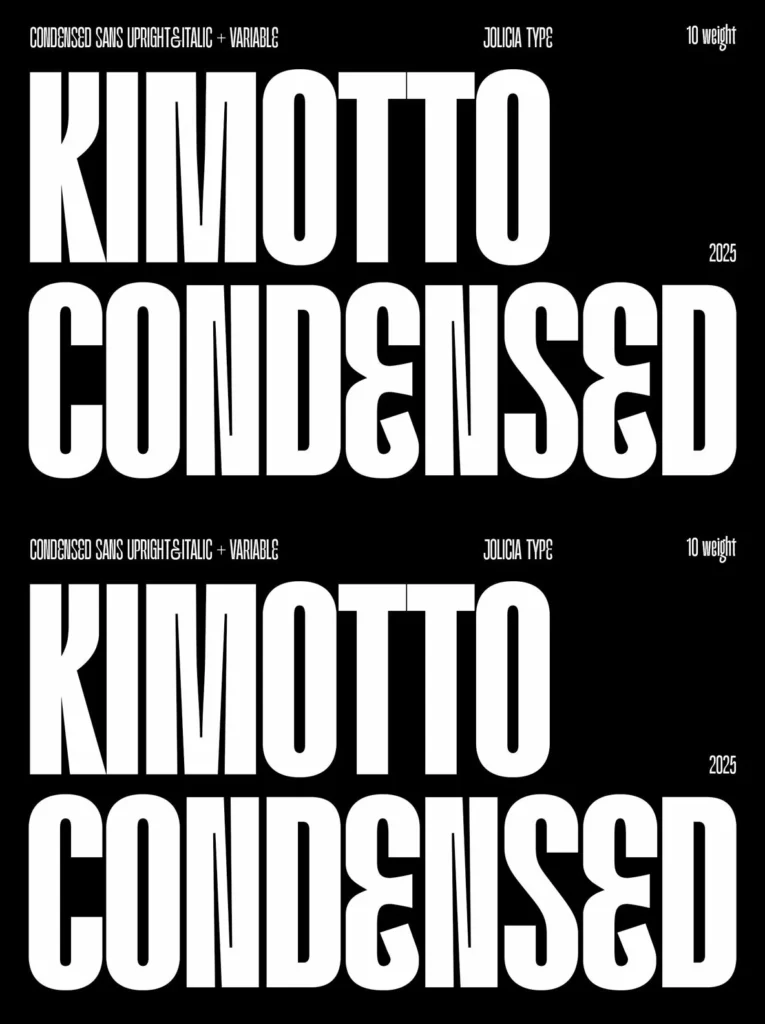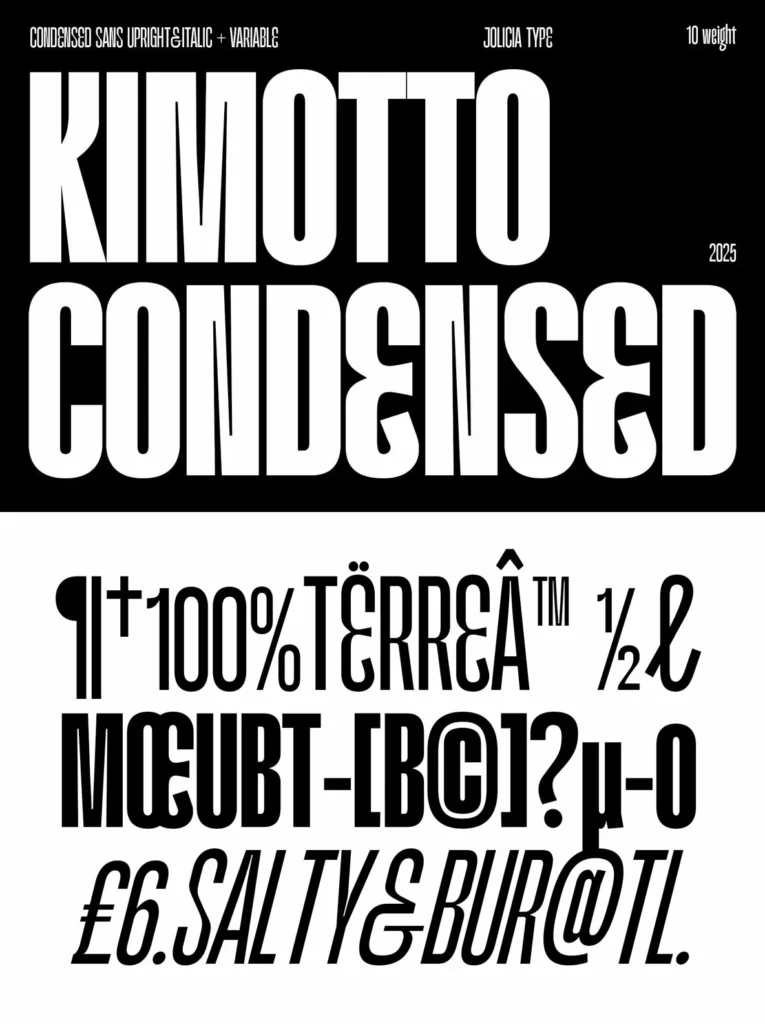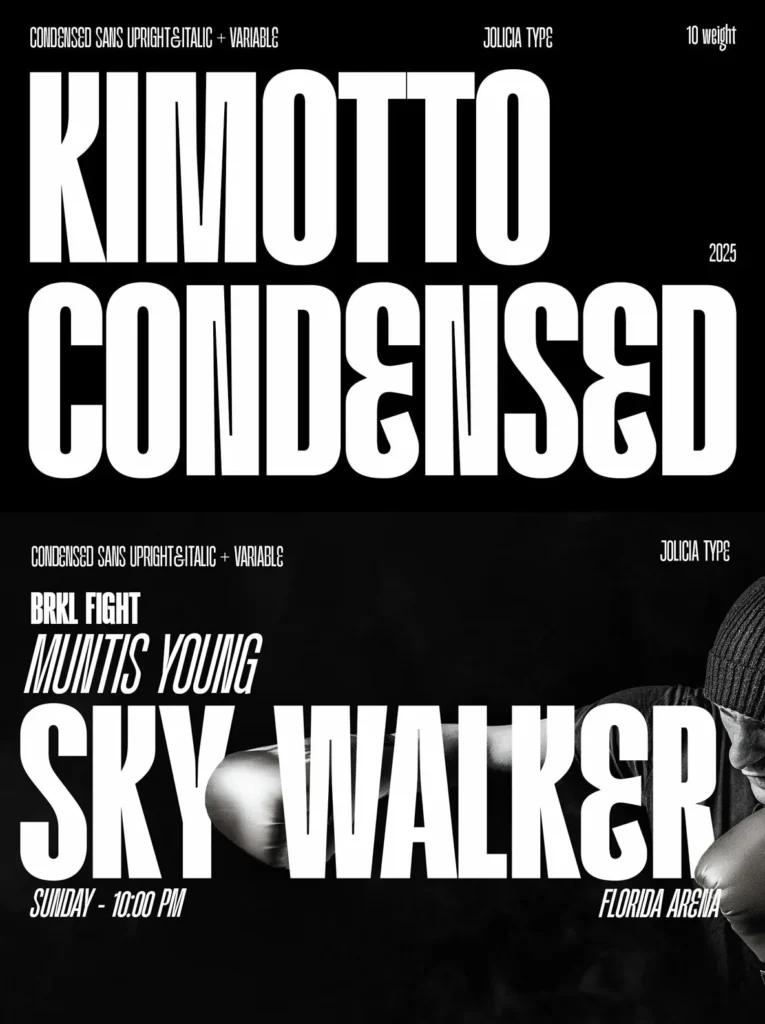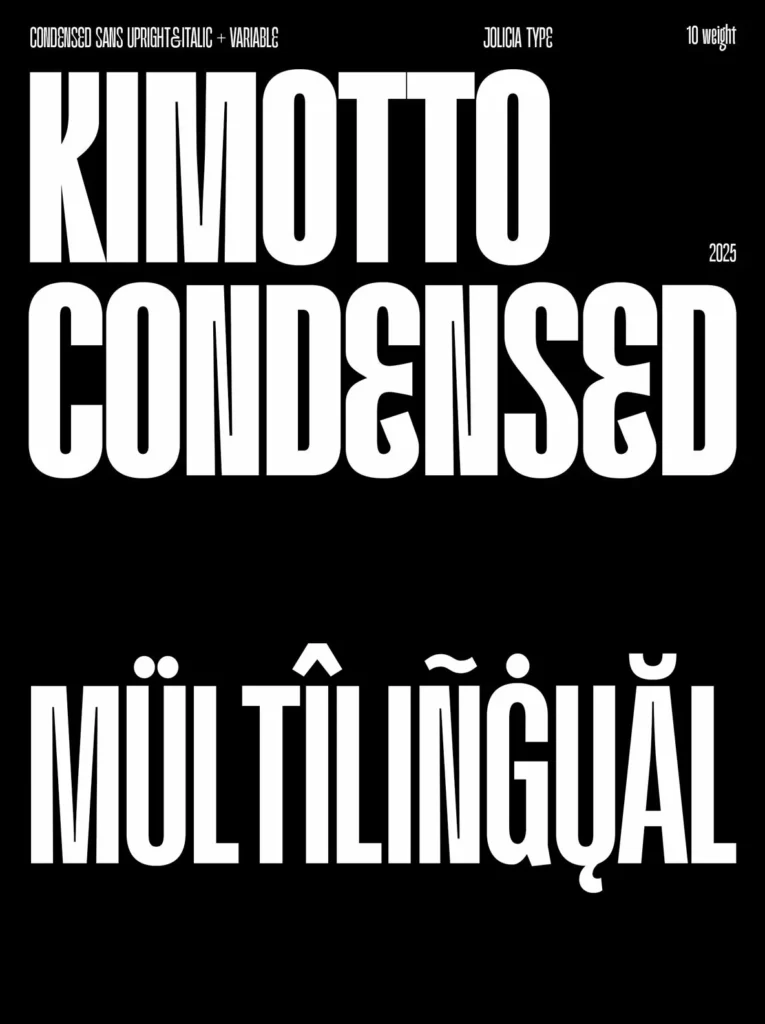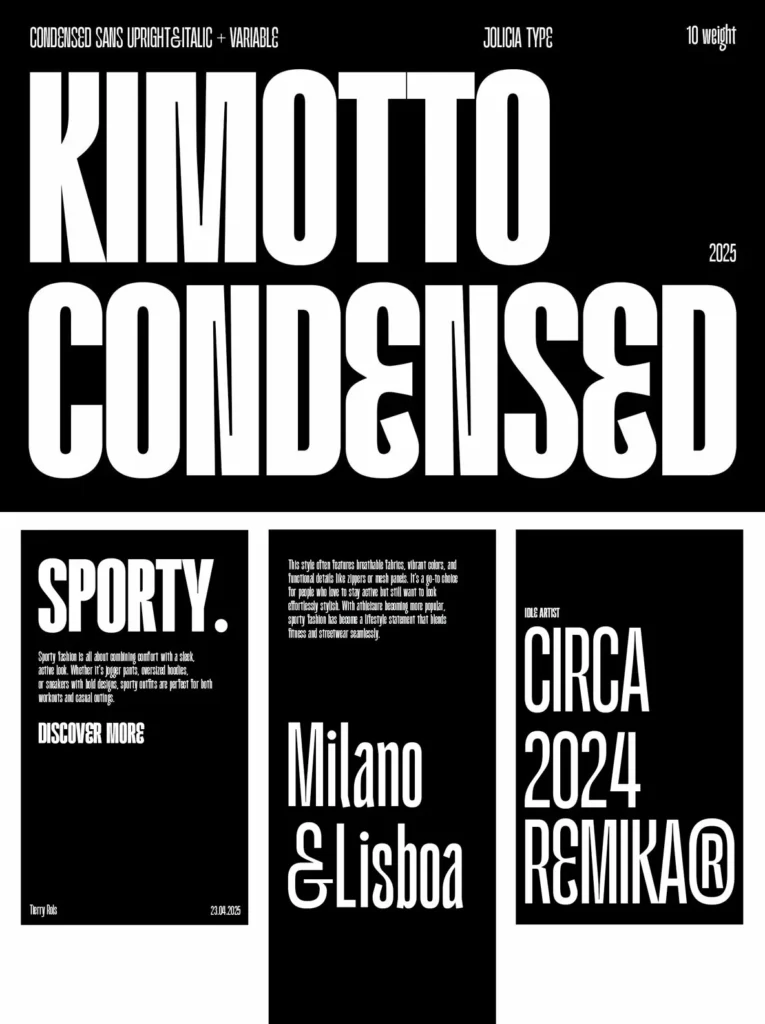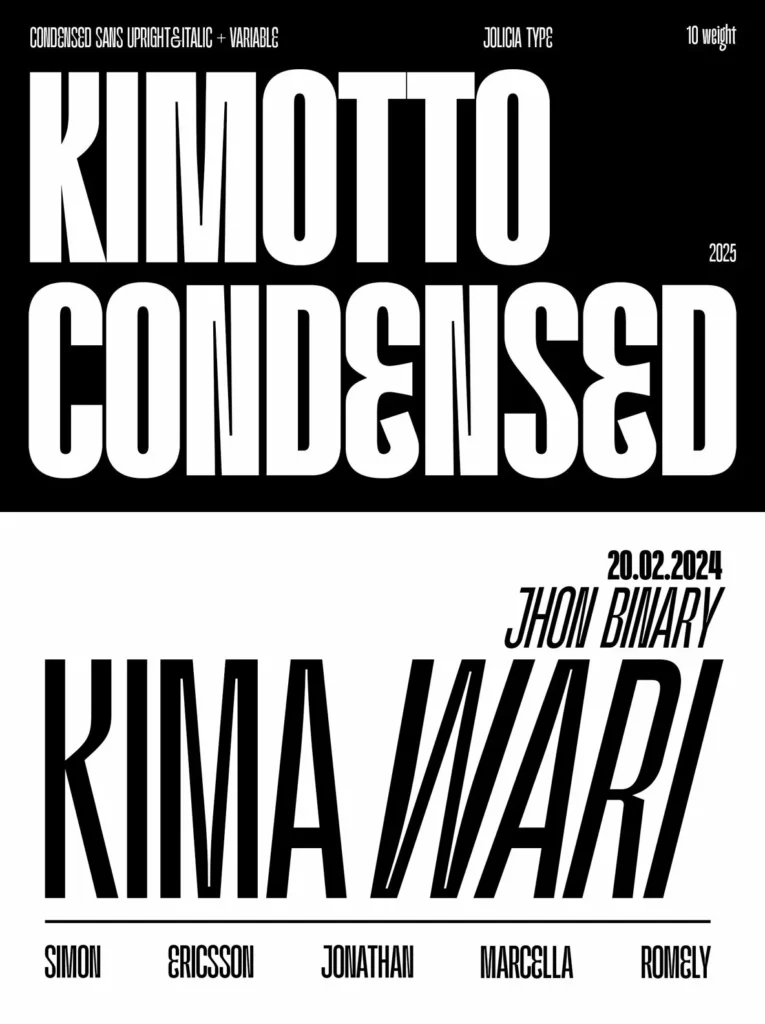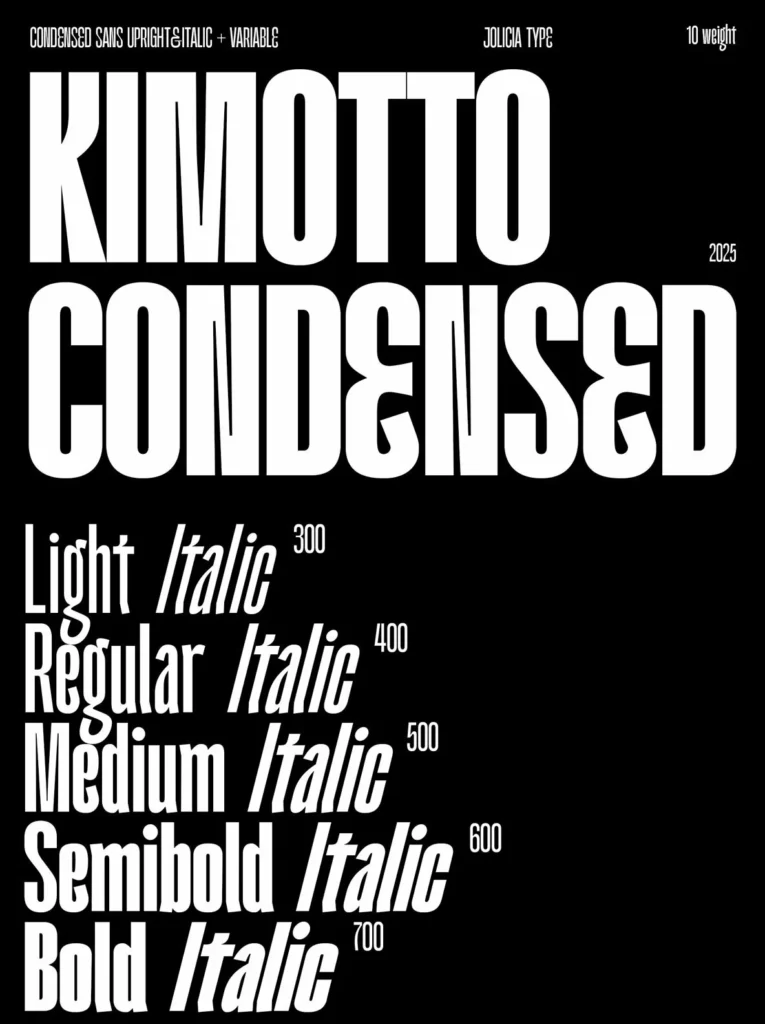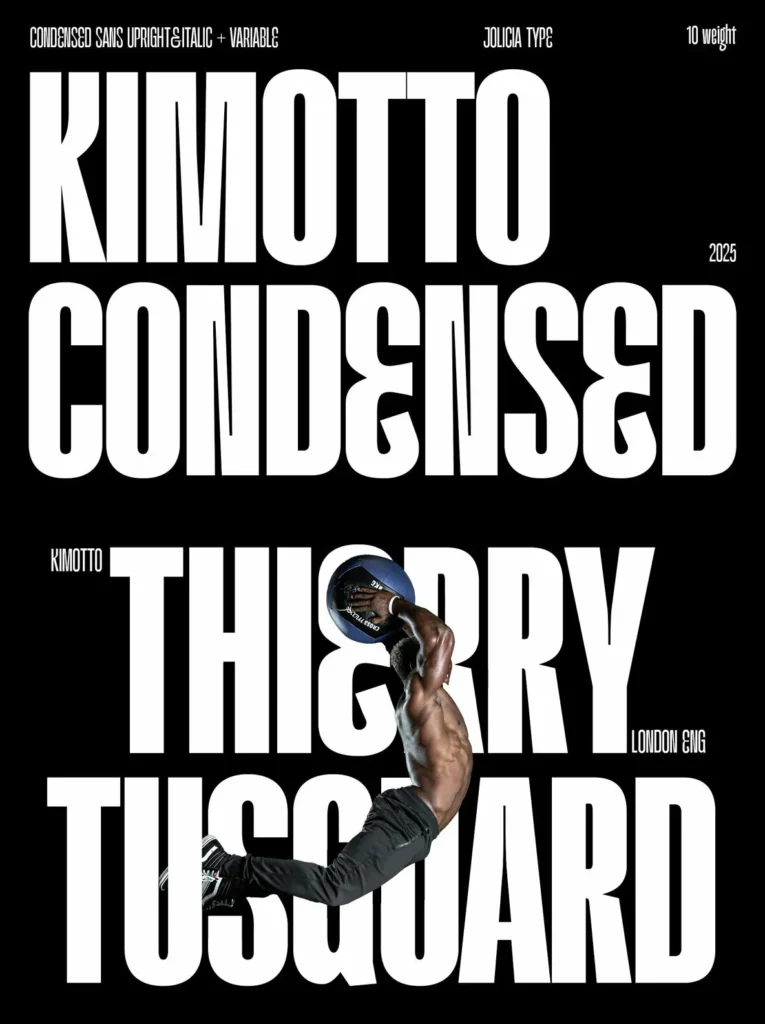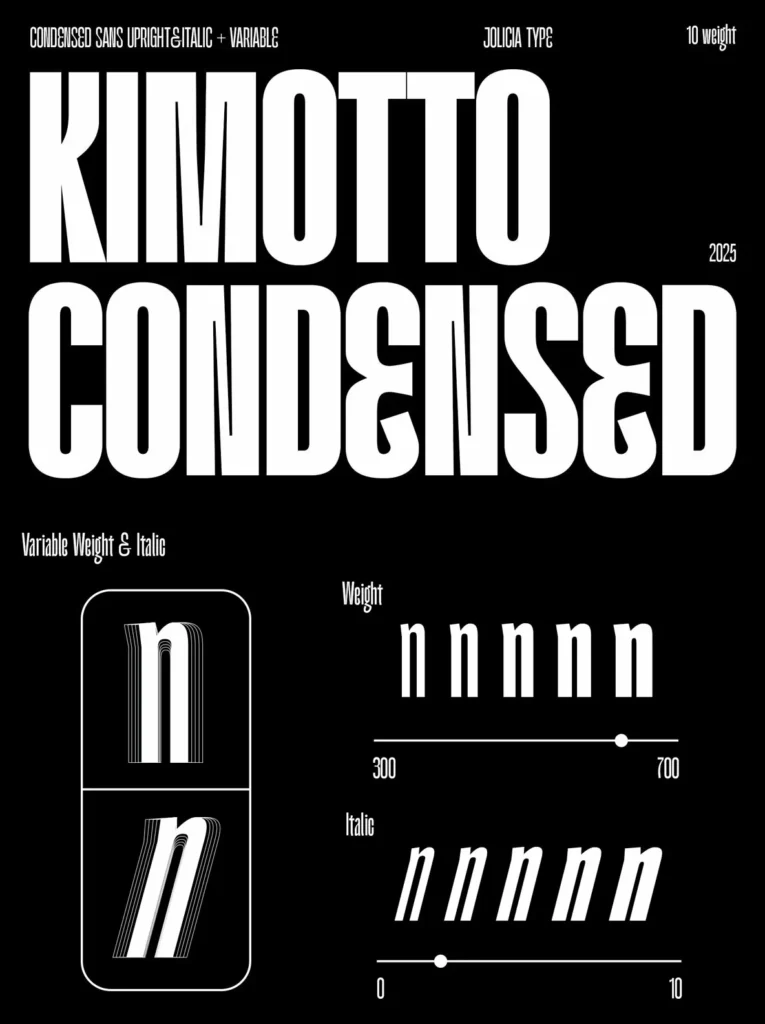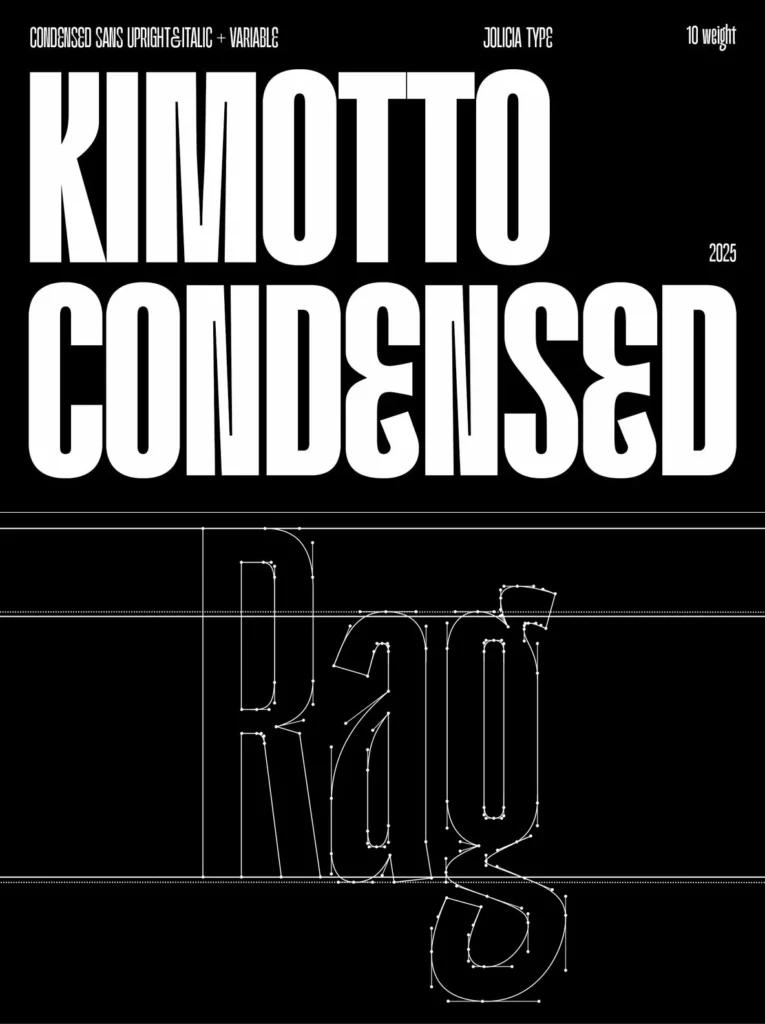
Kimotto Condensed Font
Kimotto Condensed: Confident Type for Narrow Layouts
A modern sans-serif built for tight spaces, Kimotto Condensed balances a strong voice with a space-conscious design. Designed by Jolicia Type, it includes 10 meticulously crafted weights from Light to Bold, plus true Italics set at a 15° angle. This range supports flexible typography across many creative needs, from subtle text settings to more assertive display use.
The narrow, refined letterforms suit a wide span of applications—headlines, posters, branding, packaging, and editorial layouts. When space is at a premium and clarity matters, each character maintains excellent legibility. Kimotto Condensed also includes a variable font option, giving you smooth control over weight and slant for responsive layouts and consistent typographic color.
Features
10 Weights: Offers Light to Bold variations.
True Italics: Carefully slanted at a 15° angle for authentic style.
Variable Font: Enables seamless customization of weight and slant.
Choose Kimotto Condensed when you need modern clarity, efficient width, and dependable versatility.